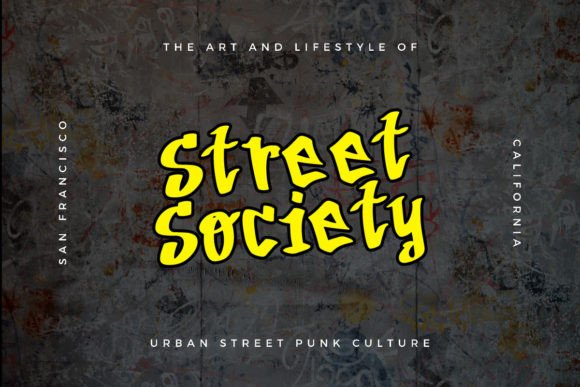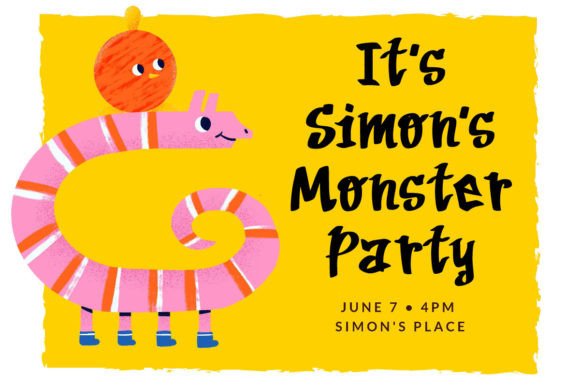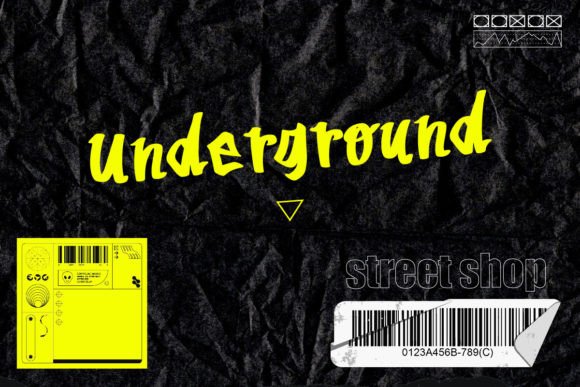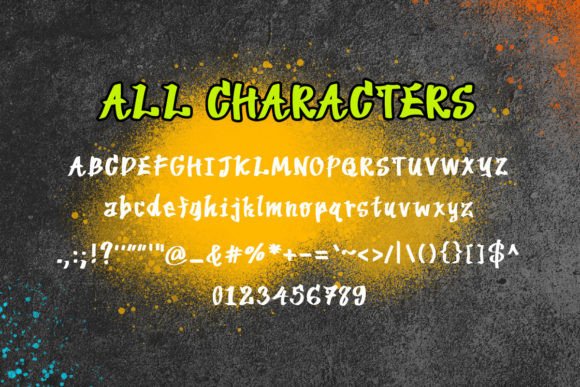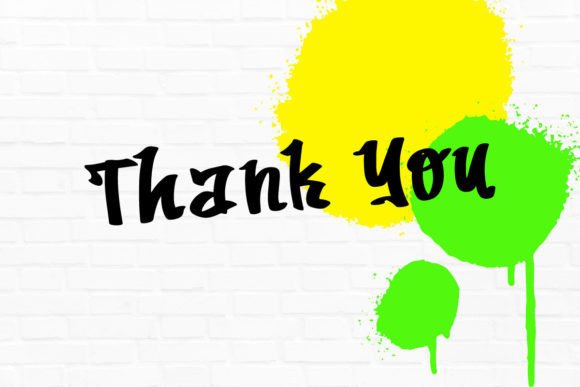
Introducing Gravity Bomb Font: The Ultimate Display Graffiti Font
Are you tired of using the same old fonts for your designs? Look no further! Gravity Bomb Font is here to revolutionize your creative projects with its unique blend of positivity, character, and style. This display graffiti font is perfect for designers, crafters, and anyone looking to add a touch of urban charm to their work.
What is Gravity Bomb Font?
Gravity Bomb Font is a street typeface that exudes charm and style. Its bold, edgy design makes it perfect for creating eye-catching quotes, headings, logos, branding, merchandise, and websites. This font is not just a collection of letters; it’s an expression of creativity and individuality.
Key Features of Gravity Bomb Font
- Unique Graffiti Style: Gravity Bomb Font boasts a distinctive graffiti style that’s sure to turn heads. Its bold lines, vibrant energy, and urban flair make it perfect for designs that require a dash of street art.
- Full of Positivity and Character: This font is not just about aesthetics; it’s also about attitude. Gravity Bomb Font radiates positivity and character, making it ideal for designs that require a friendly, approachable tone.
- Highly Versatile: Whether you’re designing a logo, creating merchandise, or building a website, Gravity Bomb Font is the perfect choice. Its versatility ensures that it will work seamlessly across various mediums and applications.
- Easy to Read: Despite its bold and edgy design, Gravity Bomb Font remains highly legible, making it perfect for quotes, headings, and other display text.
Why Choose Gravity Bomb Font?
With so many fonts available, why choose Gravity Bomb Font? Here are just a few reasons:
- Stand Out from the Crowd: Gravity Bomb Font is not your average font. Its unique design ensures that your work will stand out from the crowd and grab attention.
- Perfect for Creative Projects: Whether you’re a designer, crafter, or artist, Gravity Bomb Font is the perfect choice for creative projects that require a dash of personality and style.
- Time-Saving: With Gravity Bomb Font, you can create stunning designs in no time. Its ease of use and versatility save you time and effort, allowing you to focus on the creative process.
How to Use Gravity Bomb Font
Gravity Bomb Font is incredibly easy to use, even for those who are new to design. Here are a few tips to get you started:
- Pair it with Other Fonts: Gravity Bomb Font works beautifully with other fonts. Experiment with different pairings to create stunning contrast and visual interest.
- Experiment with Colors: This font looks amazing in bold, bright colors. Don’t be afraid to experiment and find the perfect hue to match your design.
- Use it for Headings and Quotes: Gravity Bomb Font is perfect for headings, quotes, and other display text. Use it to add a touch of personality to your designs.
| Font Name | Gravity Bomb Font |
| Author | Katatype |
Gravity Bomb Font is more than just a font; it’s a statement. Its unique graffiti style, positivity, and character make it the perfect choice for designers, crafters, and anyone looking to add a touch of urban charm to their work. With its versatility, ease of use, and stunning design, Gravity Bomb Font is sure to revolutionize your creative projects. So why wait? Download Gravity Bomb Font today and unleash your creativity!